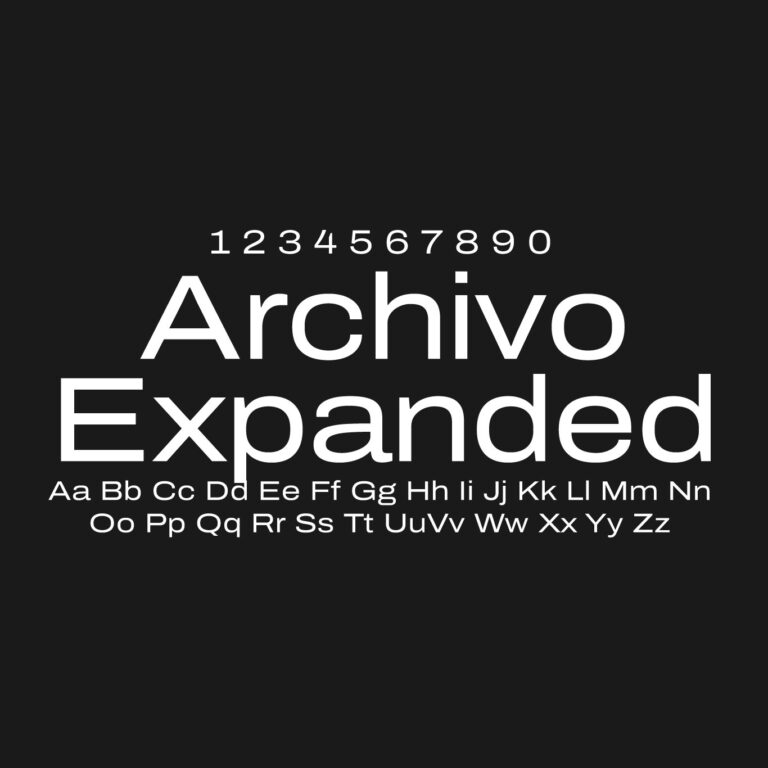
Archivo Expanded is a wider version of the Archivo typeface, designed for strong display typography, bold layouts and high-impact digital design. It has extended letterforms, a clean grotesque structure and solid readability, making it useful for posters, headlines, campaign graphics, websites, app interfaces, editorial layouts, presentations and brand-focused design projects where a wider typographic presence is needed.
Font Name: Archivo Expanded
Font Type: Sans Serif
Category: Grotesque Sans Serif / Expanded Display Font
Visual Style: Expanded, clean, strong, modern, readable
Best For: Posters, headlines, campaign graphics, UI design, websites, editorial layouts, presentations and branding
Designer: Omnibus-Type